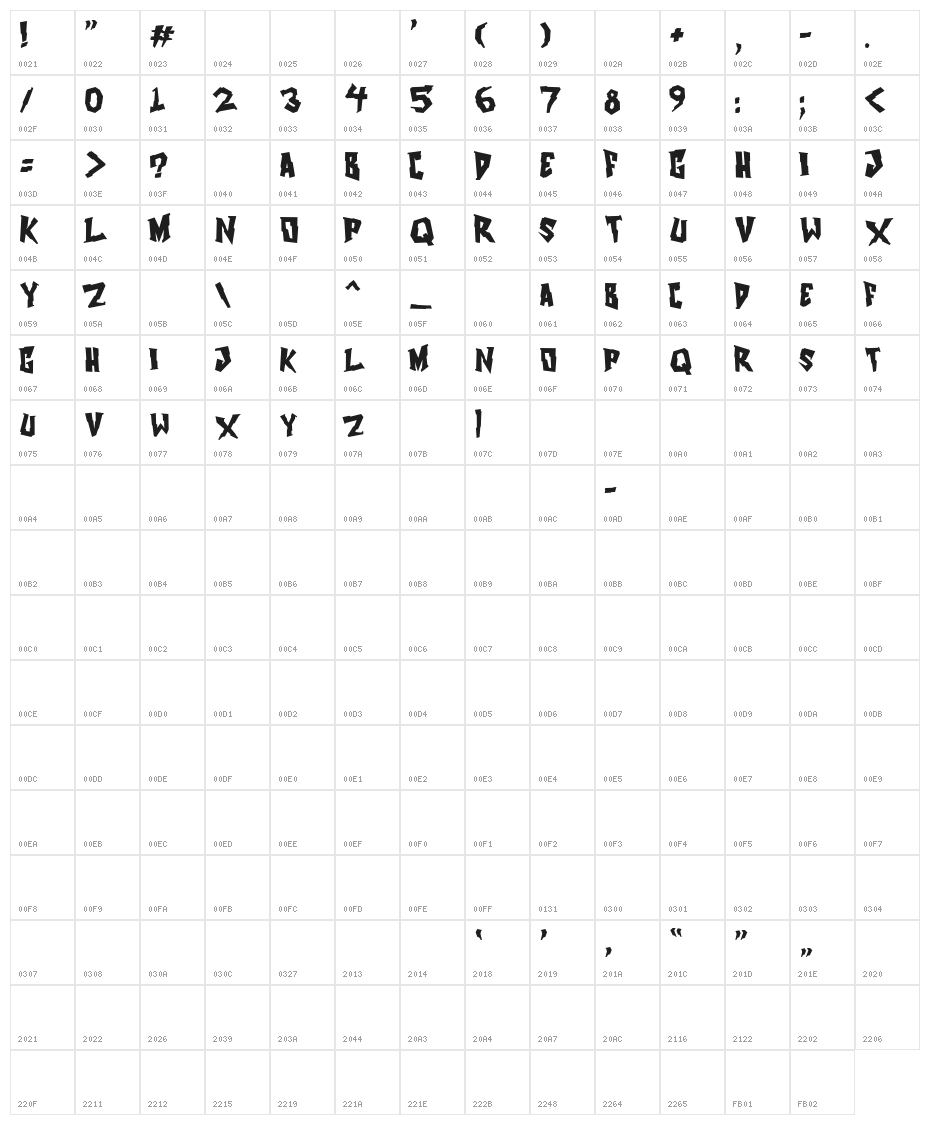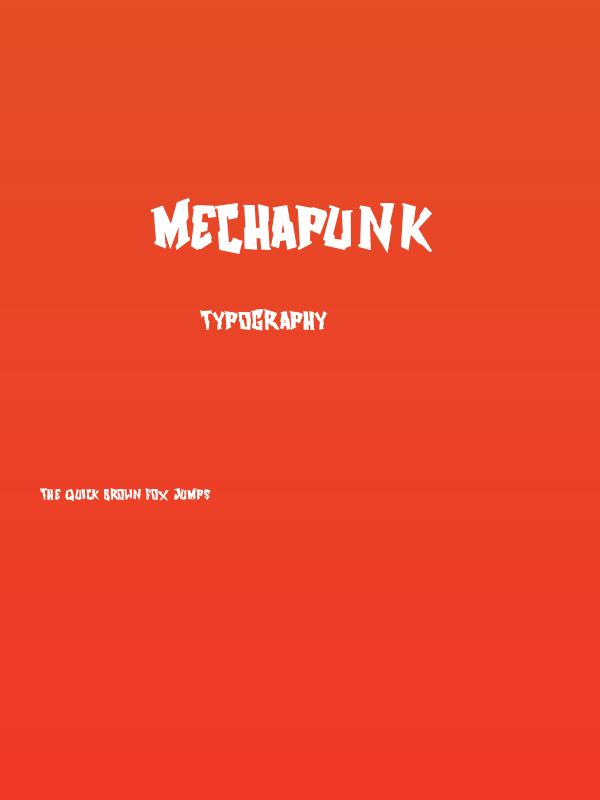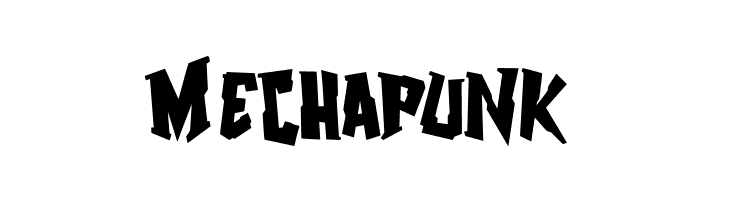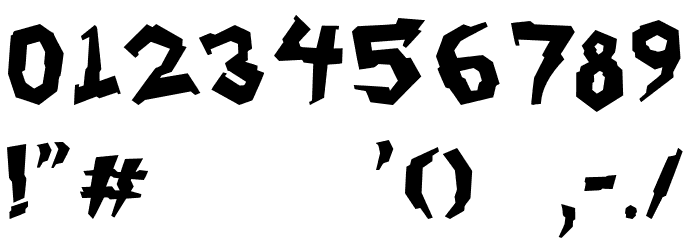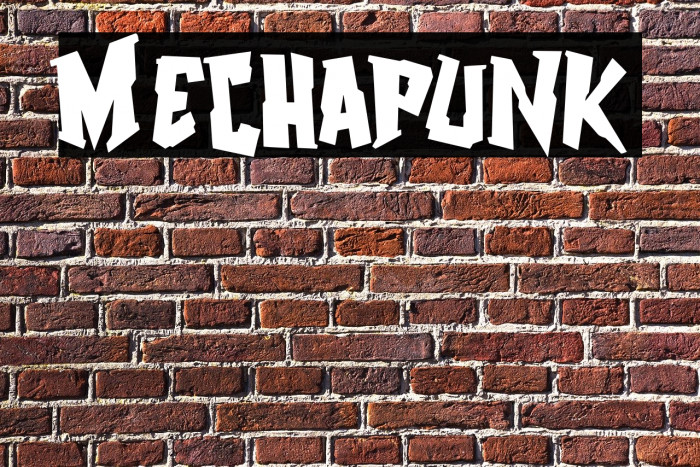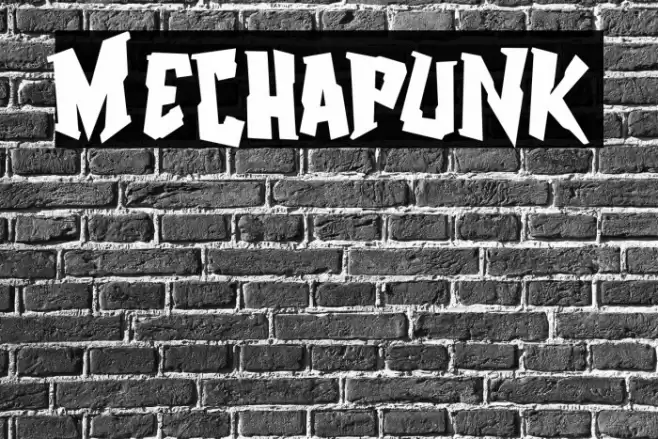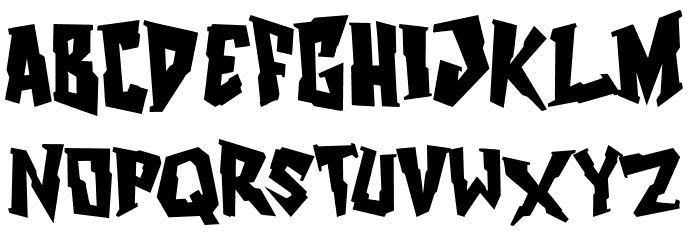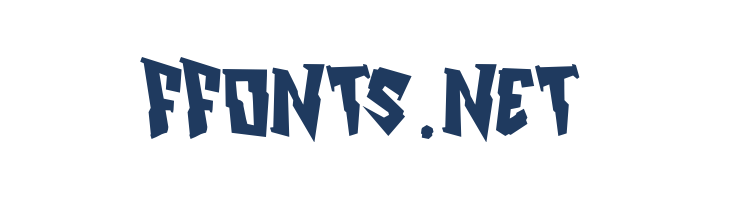
Mechapunk Font
Mechapunk Description
This font exhibits a bold, angular design with a futuristic and mechanical aesthetic. The characters are sharply defined, with jagged edges and a blocky structure that suggests a sense of strength and industrial influence. The uppercase and lowercase letters maintain a consistent style, with exaggerated angles and a slightly aggressive appearance. The numbers and special characters follow the same design principles, ensuring uniformity across the typeface. This font is highly distinctive, making it ideal for projects that require a strong visual impact.
| Proposed Projects | Ideal for video game titles, sci-fi movie posters, tech branding, and edgy graphic designs. |